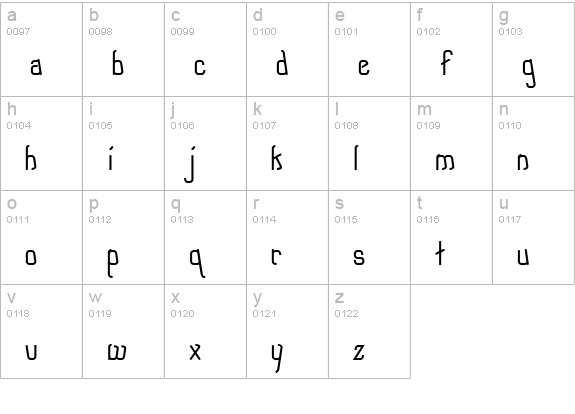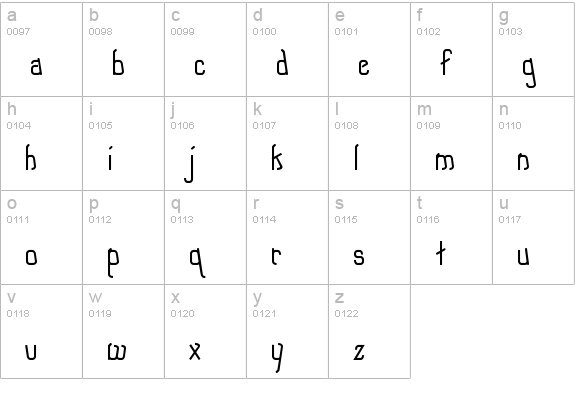
Dipper MF Font Details
Dipper MF font is a modern and stylish typeface that brings a touch of sophistication to any design project. With its sleek lines and unique letterforms, this font is perfect for logos, headlines, and branding materials. The clean and versatile design of Dipper MF makes it suitable for a wide range of applications, from print to digital. The best part? Dipper MF font is completely free to download at FontsMarket.com. Whether you're a designer looking to add a fresh new font to your collection or a business owner in need of a professional-looking typeface, Dipper MF has got you covered. Don't miss out on the opportunity to enhance your projects with this beautiful and free font today.